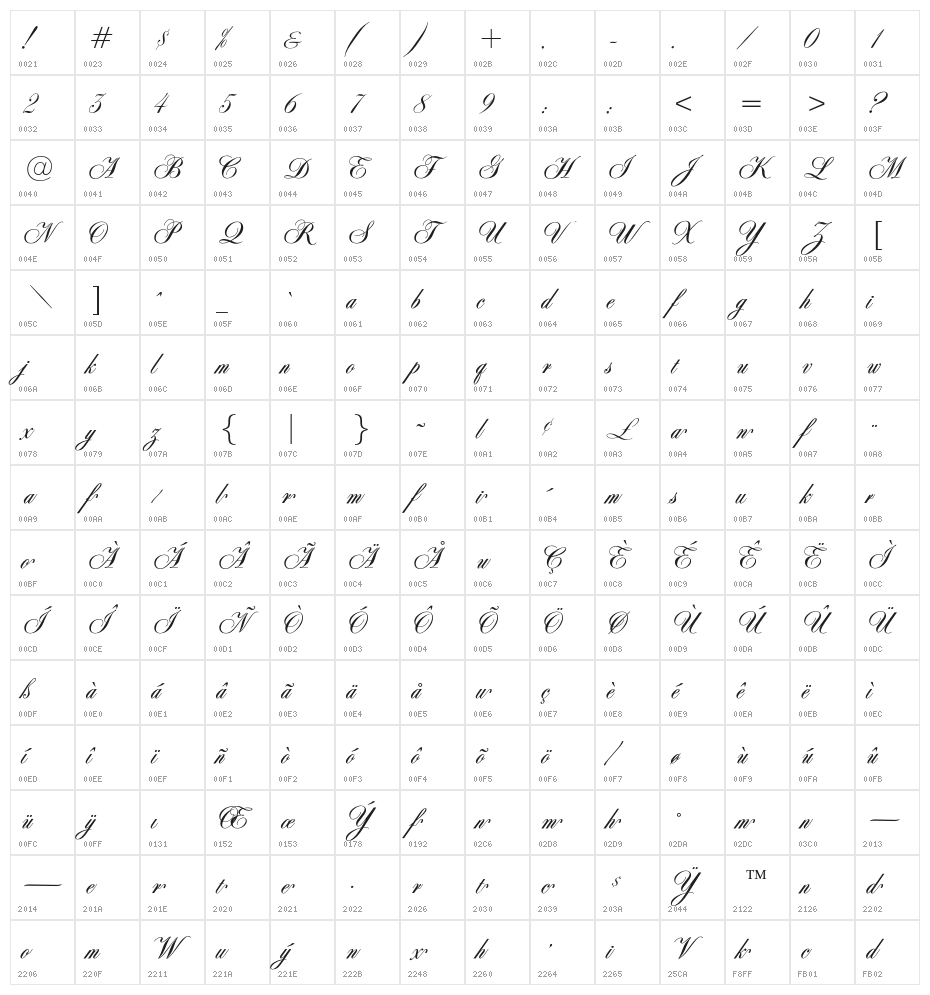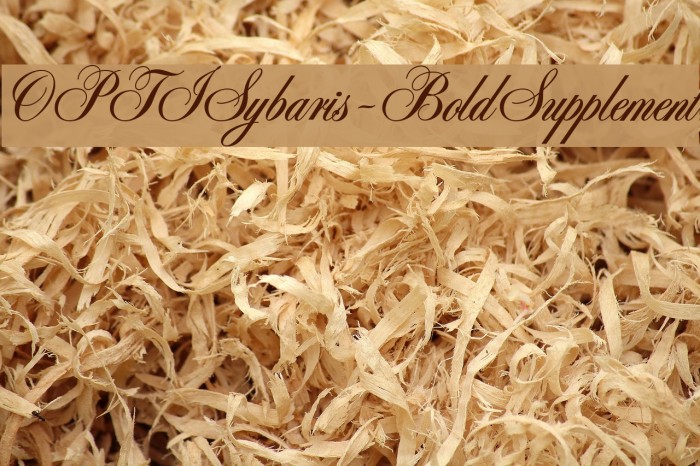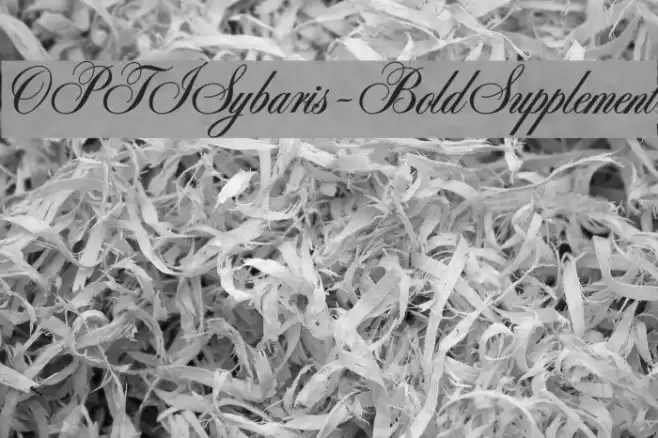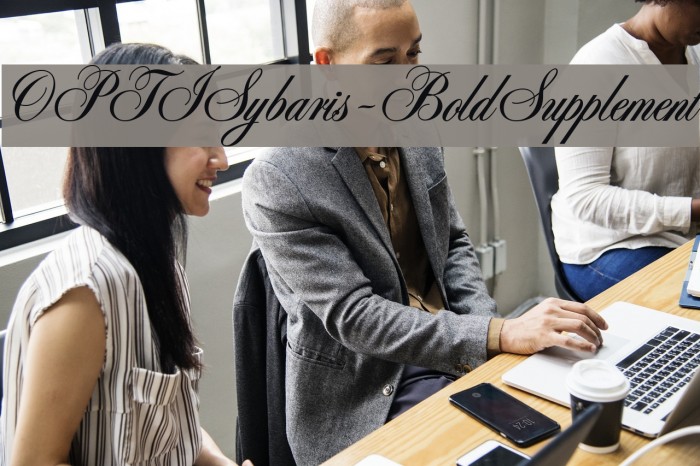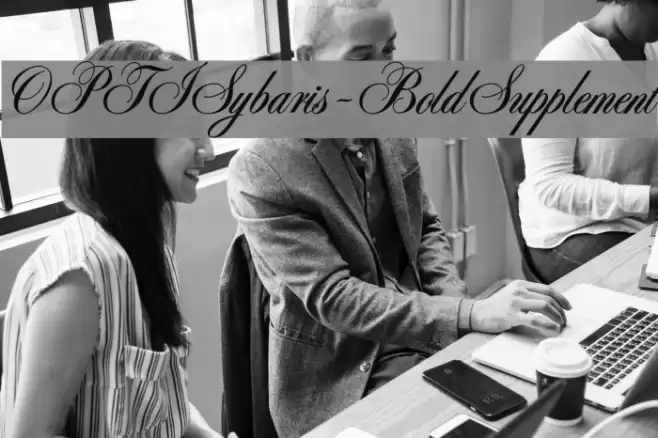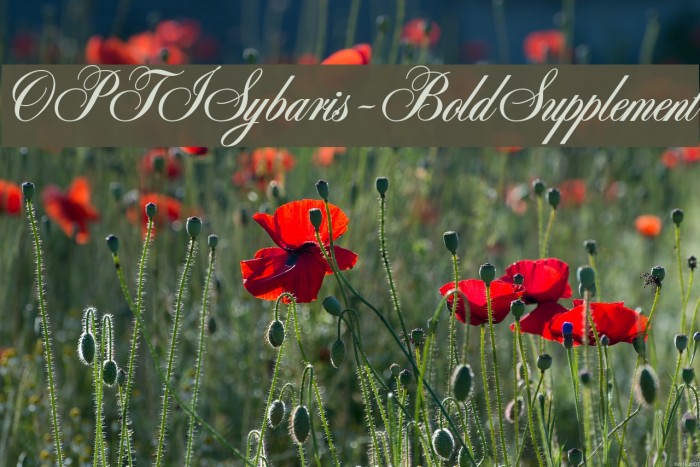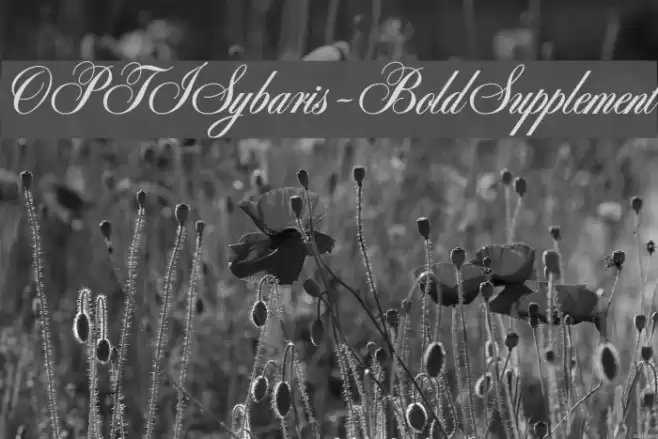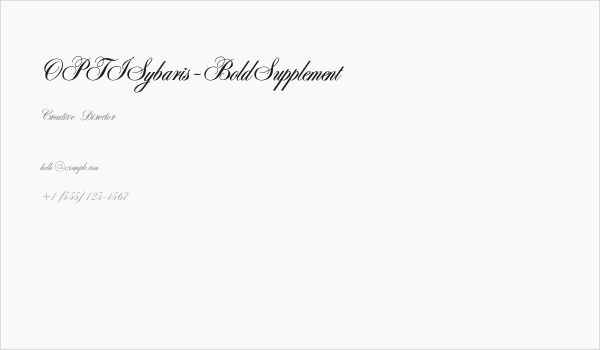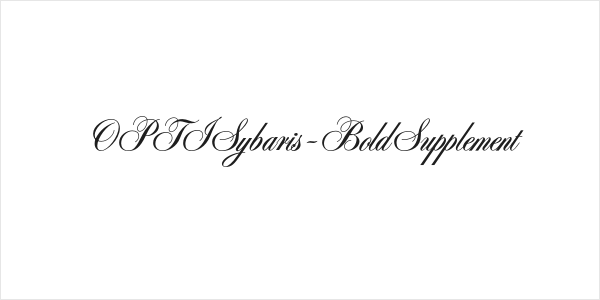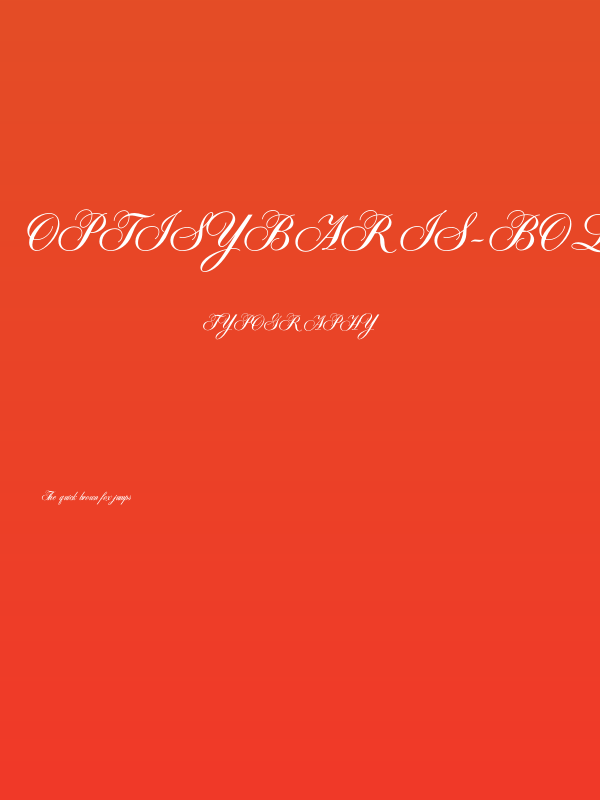
OPTISybaris-BoldSupplement Font
OPTISybaris-BoldSupplement Description
This elegant script font features a flowing, cursive style with intricate loops and flourishes. The uppercase letters are particularly ornate, with sweeping lines that convey a sense of sophistication and grace. The lowercase letters maintain a consistent style, offering a smooth and connected appearance that enhances readability. The numerals are designed to match the overall aesthetic, with a slight slant and decorative elements. Special characters are included, each crafted to complement the font's luxurious style. This font is ideal for projects that require a touch of elegance and formality.
| Overall Style | Elegant, Formal |
| Proposed Projects | Wedding invitations, luxury branding, elegant signage, formal event programs. |